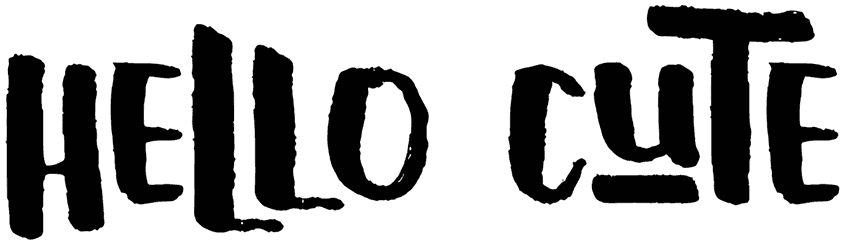
Hello Cute Font
Hello Cute is a new generation of script fonts that are very similar to street paintings and texts written on the wall. The linear and scratched style of this playful font has made many designers prefer to use it to design their street posters and advertising banners.
This font, which has a combination of uppercase and lowercase letters, can highlight whatever you have in mind and turn it into a timeless effect.